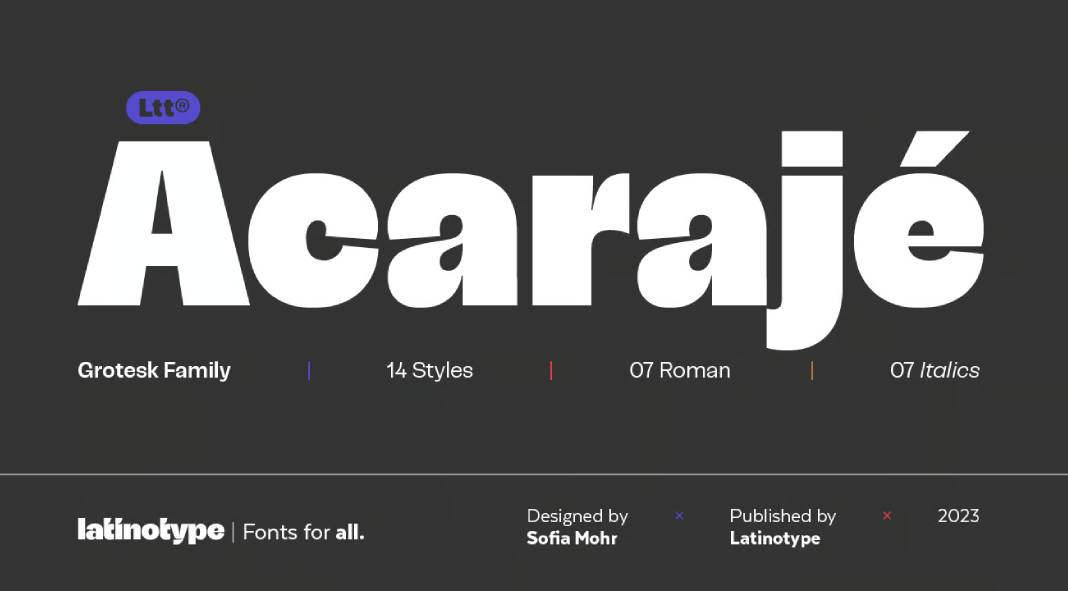
Introducing The Acarajé Typeface: The Versatile Gem of Typography
In the ever-evolving realm of design, finding a font that seamlessly melds versatility with a distinct personality is akin to discovering a hidden treasure. Enter Acarajé, the latest jewel crafted by the talented Sofia Mohr under the banner of Latinotype. With its roots embedded in the world of grotesque fonts, Acarajé transcends the ordinary, boasting a unique modulation that evolves gracefully with its weights.
Acarajé doesn’t just stand out; it dances across the canvas of creativity with an effervescent flair. Its jovial demeanor remains a constant companion, never abandoning the classic attributes inherent in grotesque typefaces. What truly sets this font apart is its ability to strike the perfect balance between tradition and innovation.
The font family prides itself on its duality, offering two distinct styles: normal and italic. However, the magic truly unfurls within its spectrum of seven weights. Ranging from the robust “Black” to the refined “Regular,” Acarajé caters to a wide array of design needs. It’s this flexibility that makes it a go-to choice for designers seeking a font that effortlessly adapts to diverse projects.
Let’s delve deeper into why Acarajé has swiftly become a designer’s muse:
A Playful Modulation:
Acarajé’s charm lies in its modulation—a journey that unfolds as you explore its various weights. From the bold strokes of the “Black” weight to the subtler nuances of the “Regular,” each iteration breathes life into the text, evoking a sense of dynamism rarely seen in grotesque fonts.
Versatility Unleashed:
The versatility of Acarajé is its crown jewel. Whether it’s adorning a sleek fashion magazine, gracing the pages of a corporate report, or adding a touch of whimsy to a branding campaign, this font adapts effortlessly. Its ability to blend in and stand out simultaneously makes it a chameleon in the world of typography.
Design Freedom:
With Acarajé at your disposal, design constraints become a thing of the past. Embrace the freedom to experiment with various weights and styles, allowing your creativity to flow unhindered. Whether conveying authority or exuding playfulness, this font family accommodates every design whim.
Timeless Elegance:
While exuding contemporary flair, Acarajé doesn’t sacrifice the timeless elegance associated with classic grotesque fonts. Its roots in tradition ensure a touch of sophistication in every character, making it a versatile companion in both modern and vintage-inspired designs.
Acarajé by Sofia Mohr stands as a testament to the artistry and craftsmanship that typographers pour into their creations. Its magnetic allure and adaptable nature have swiftly made it a favorite among designers seeking that elusive blend of personality and functionality in their typographic arsenal.
In a world where every design element speaks volumes, Acarajé whispers eloquently yet resonates profoundly. It’s not merely a font; it’s a statement, a canvas waiting for the strokes of creativity to paint vibrant stories. So, embrace the versatility, savor the modulation, and let Acarajé be the brushstroke that adds brilliance to your designs.